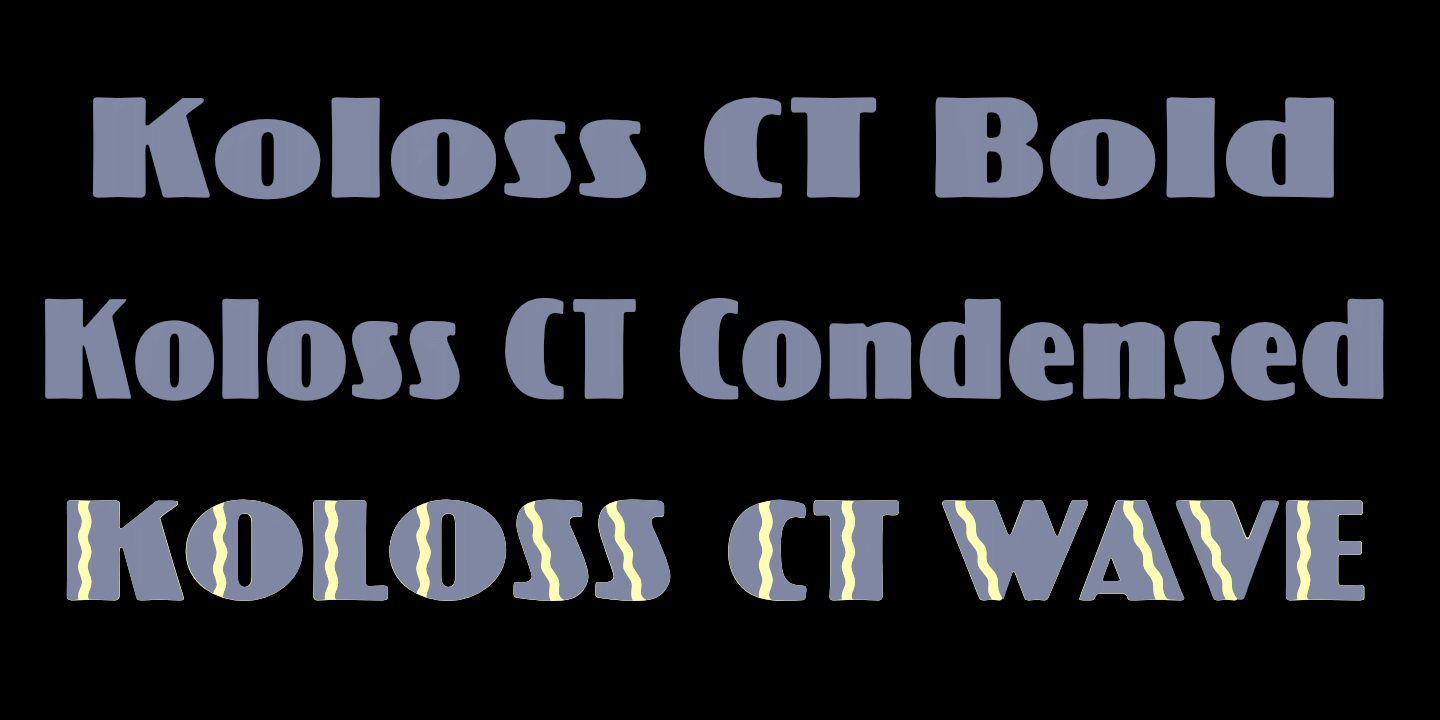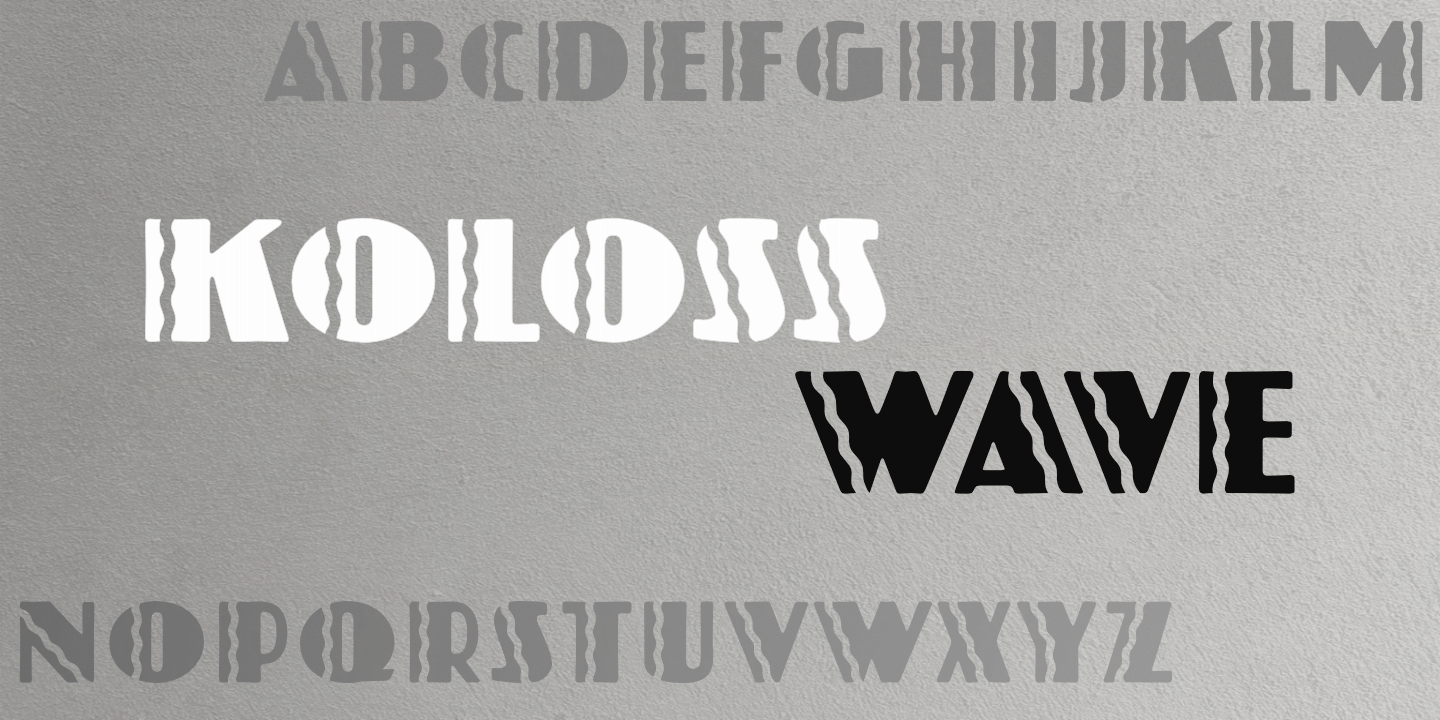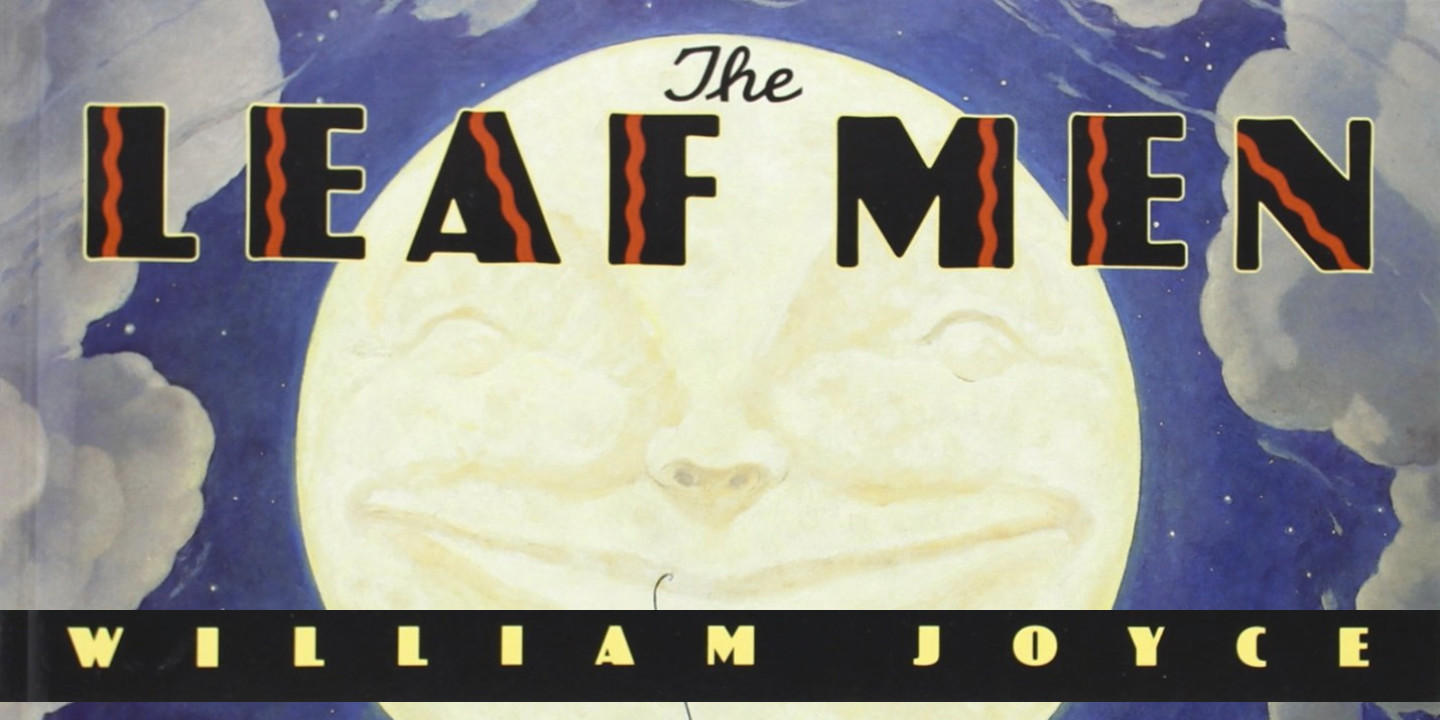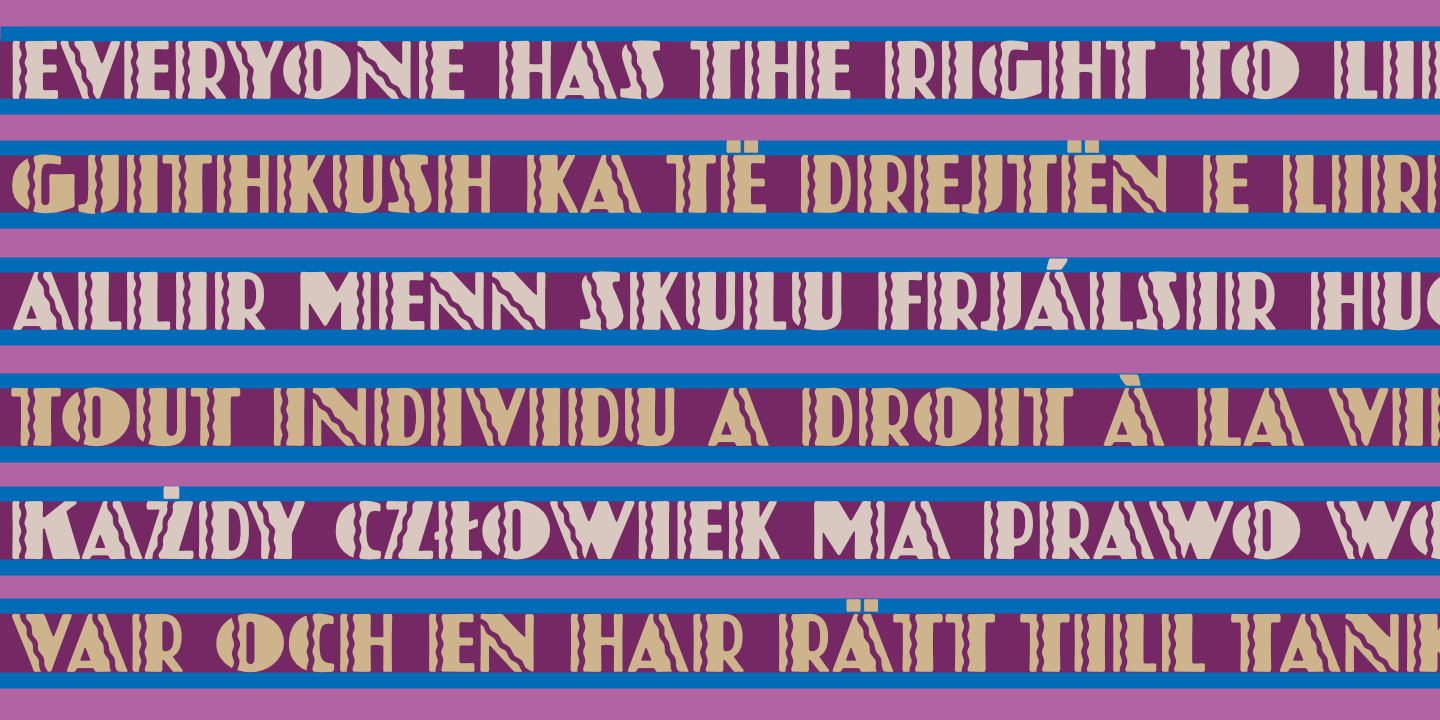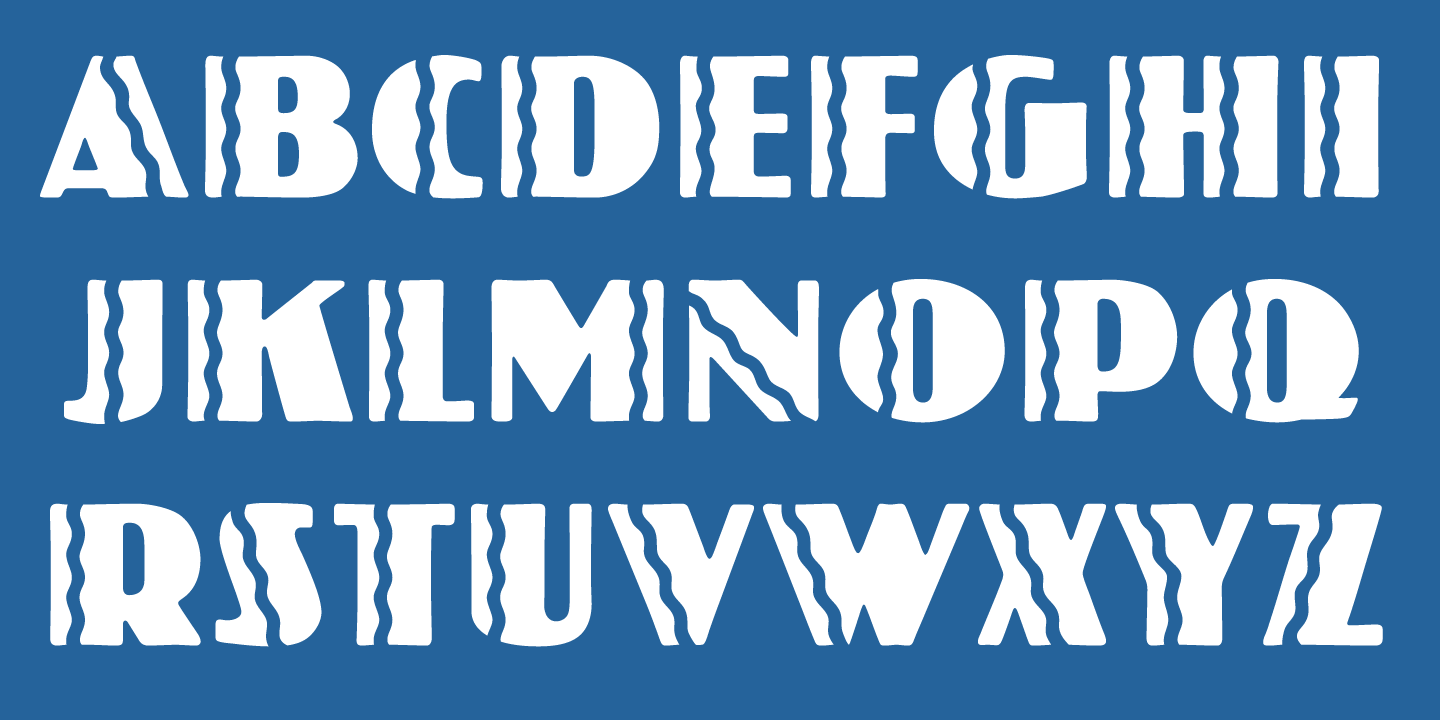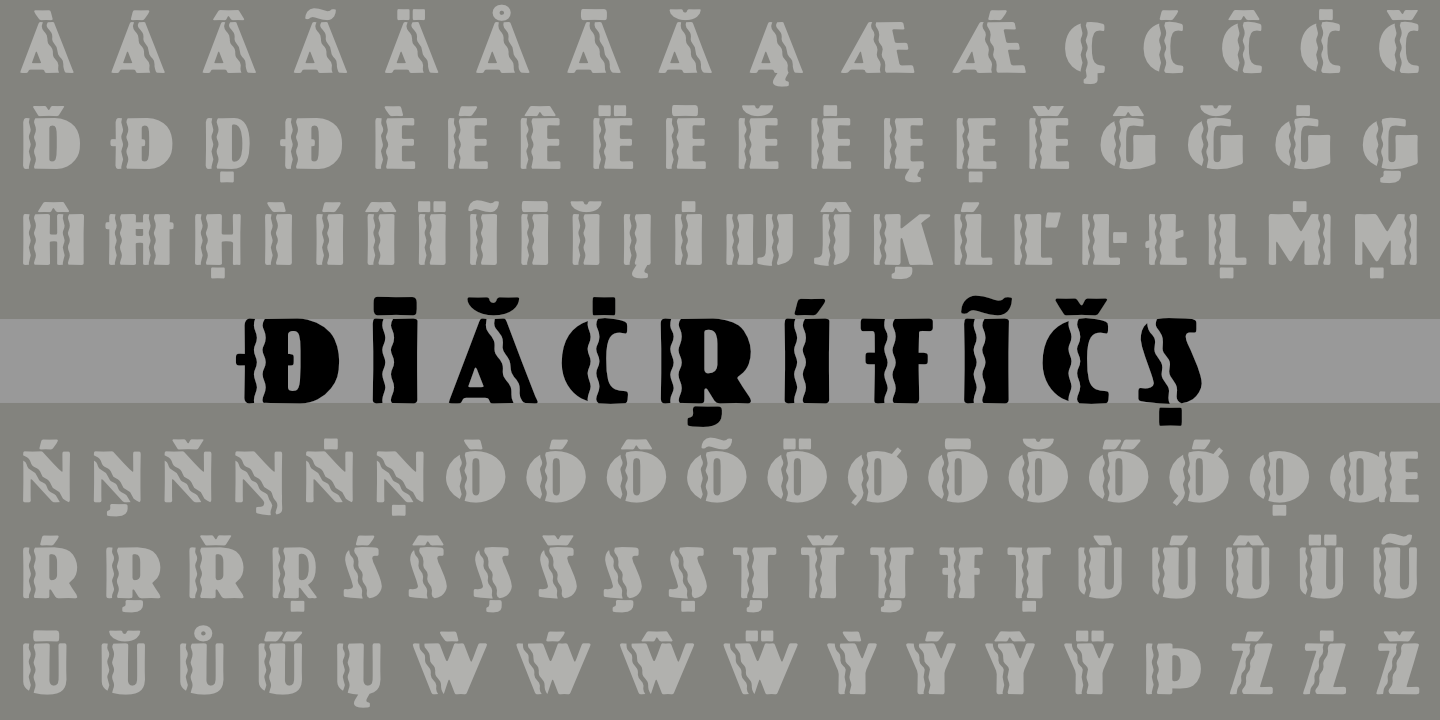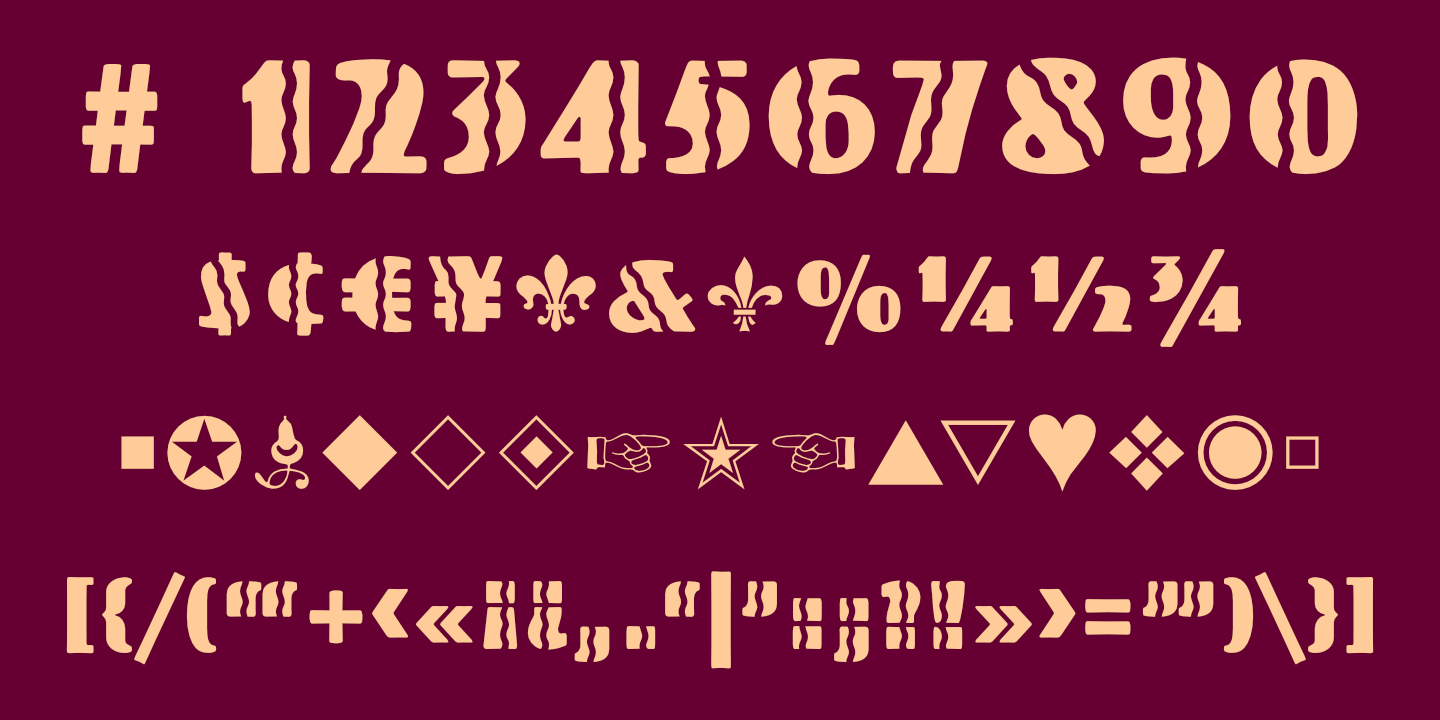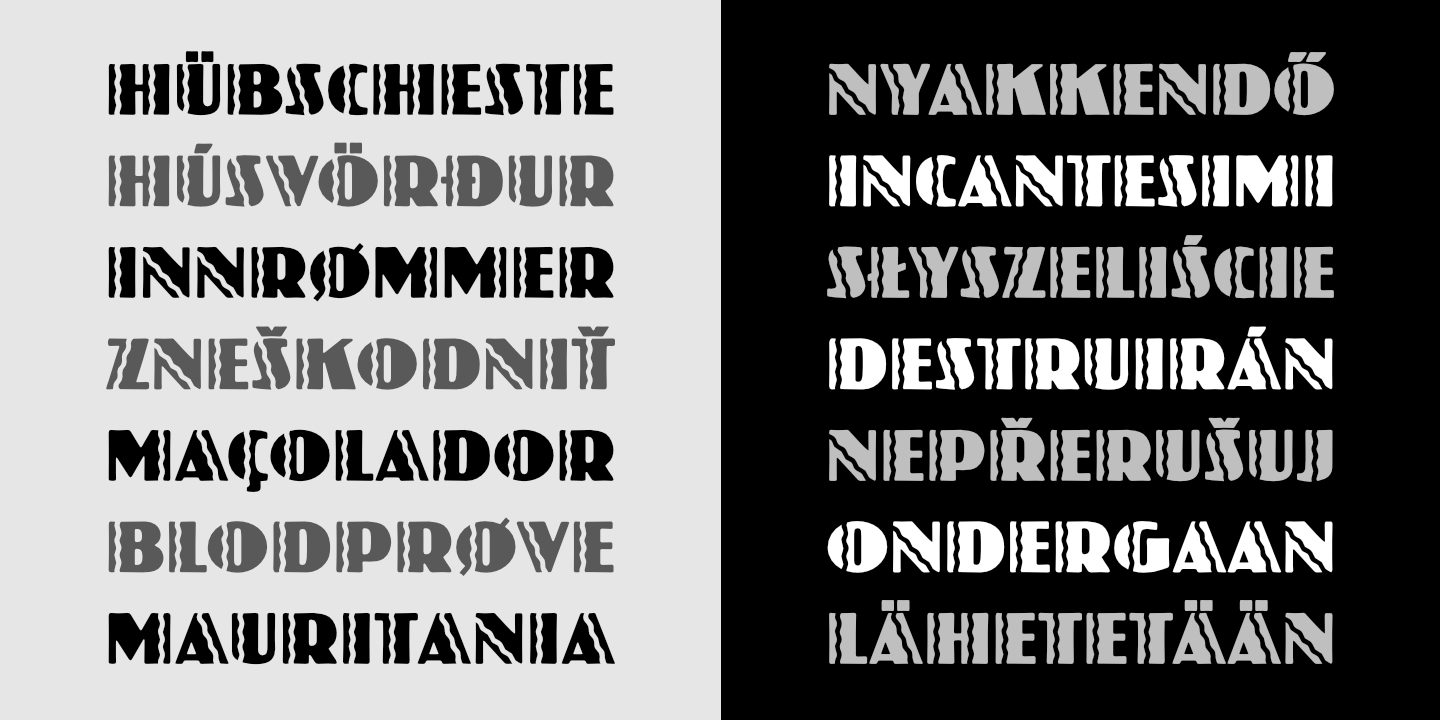
Koloss CT Wave: Basic Latin alphabet. See Glyphs for details.
Koloss Wave: Numerals, basic punctuation, currency symbols, and a sampling of ornaments.
Koloss CT Wave supports many European languages. See Glyphs for details.
Koloss CT Wave and Koloss CT Bold were used in The Leaf Men, a delightful children's book by William Joyce.